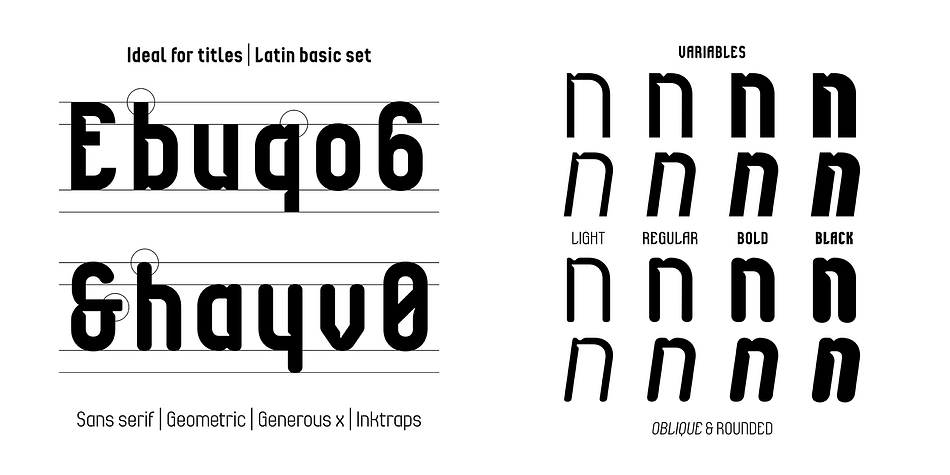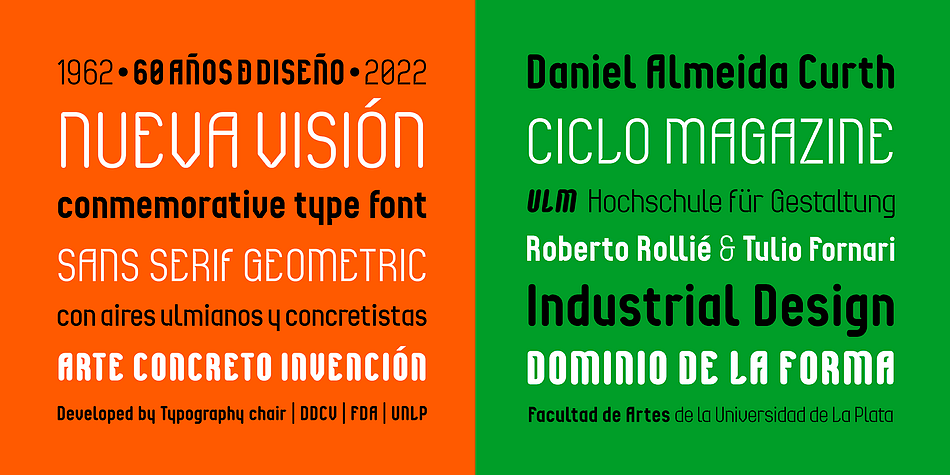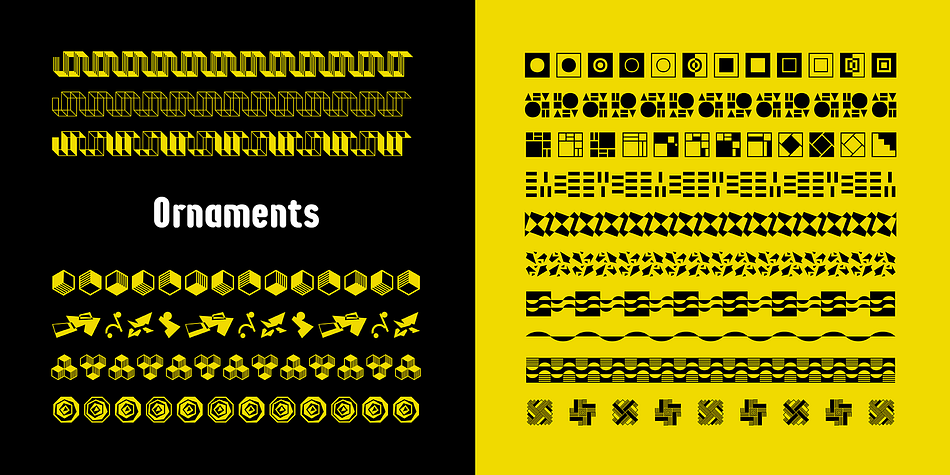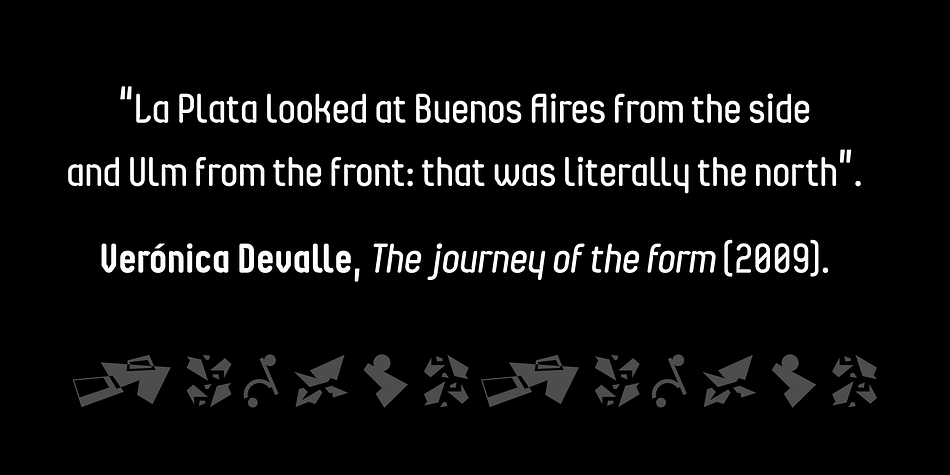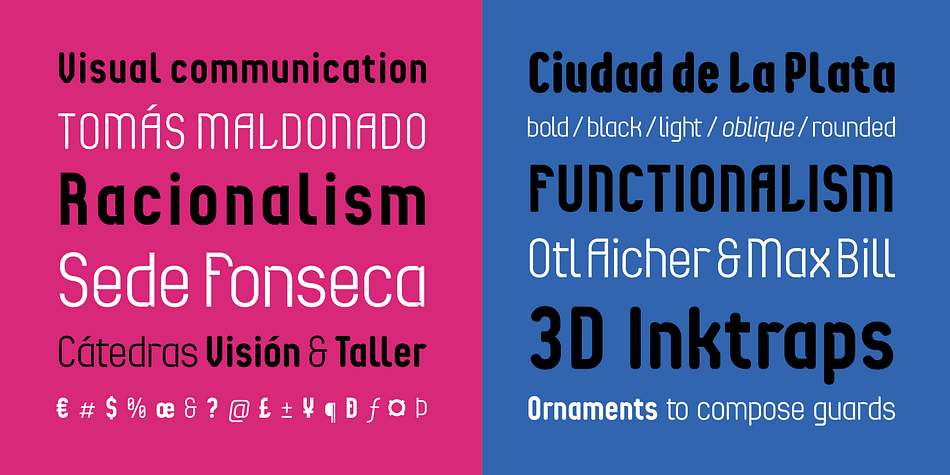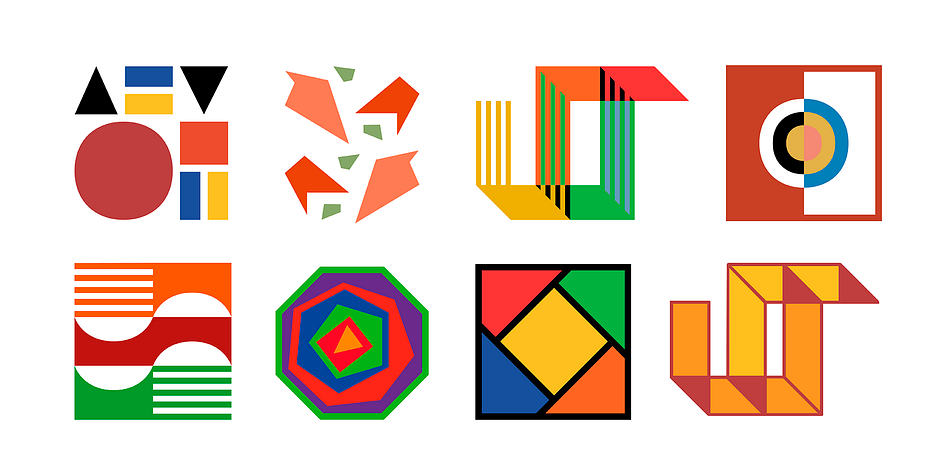
Ascetica
Ascetica is a sans serif and dingbat font family. This typeface has seventeen styles and was published by Fabio Ares.
Ascética is a font family with a geometric sans serif style, developed by professor Fabio Ares and the Typography Chair (DDCV, FDA, UNLP), especially in commemoration of 60 years of design careers at the Faculty of Arts of the National University of La Plata. Colaborators: Octavio Osores, Gastón Lugano, Walter Chaves & María Laura Motta.
Its morphology is based on the formal proposals of Concrete Invention Art and the Ulm School, closely linked to the ideas that led to the creation and evolution of these careers.
The incorporation of ink traps suggests the idea of three-dimensionality.
It currently has 16 variables, four of tone, four of inclination and one of shape (rounded). It is also accompanied by a set of ornaments with a concrete air that can be used as an icon or grouped to compose borders and/or boxes. Some variables are free.